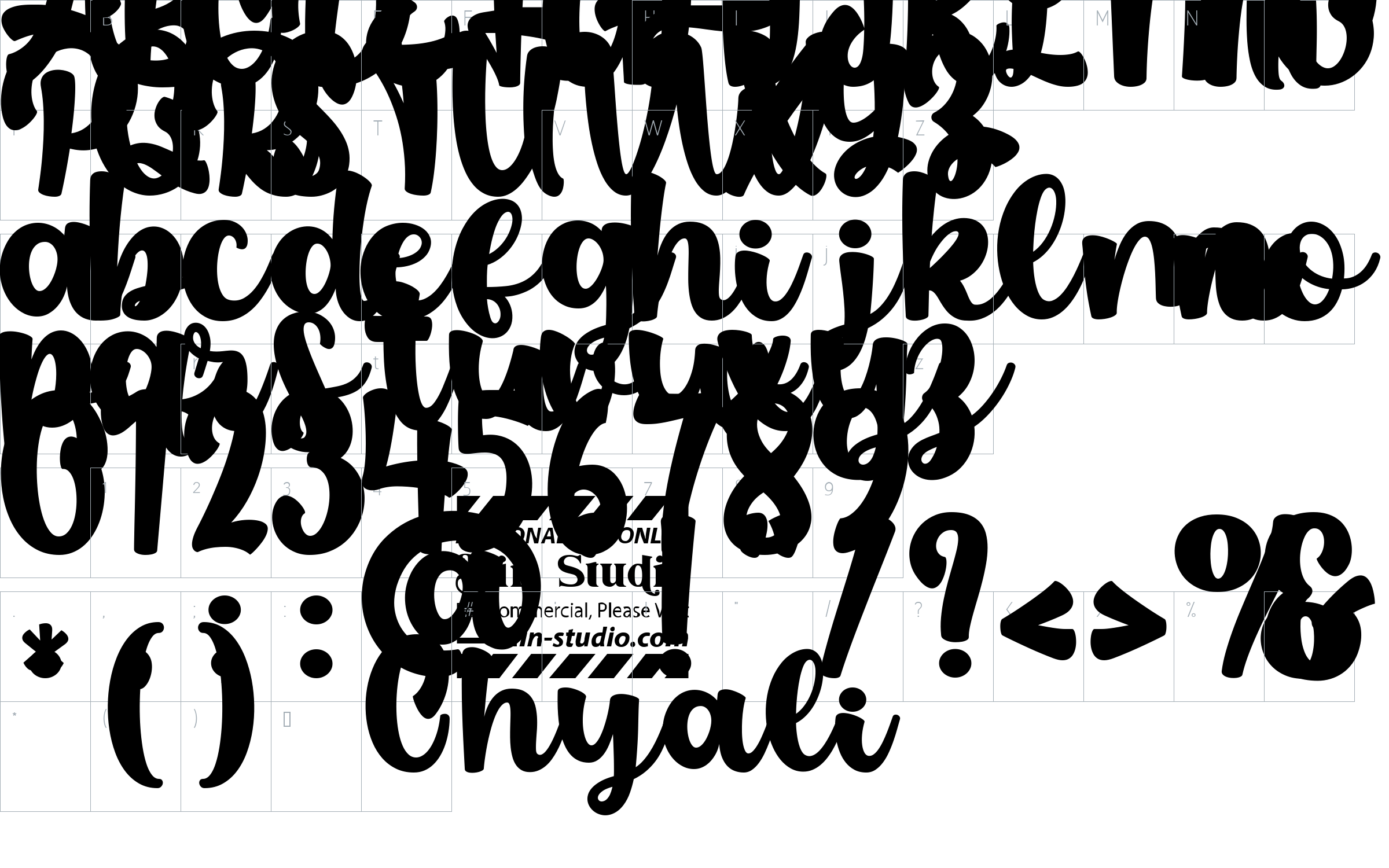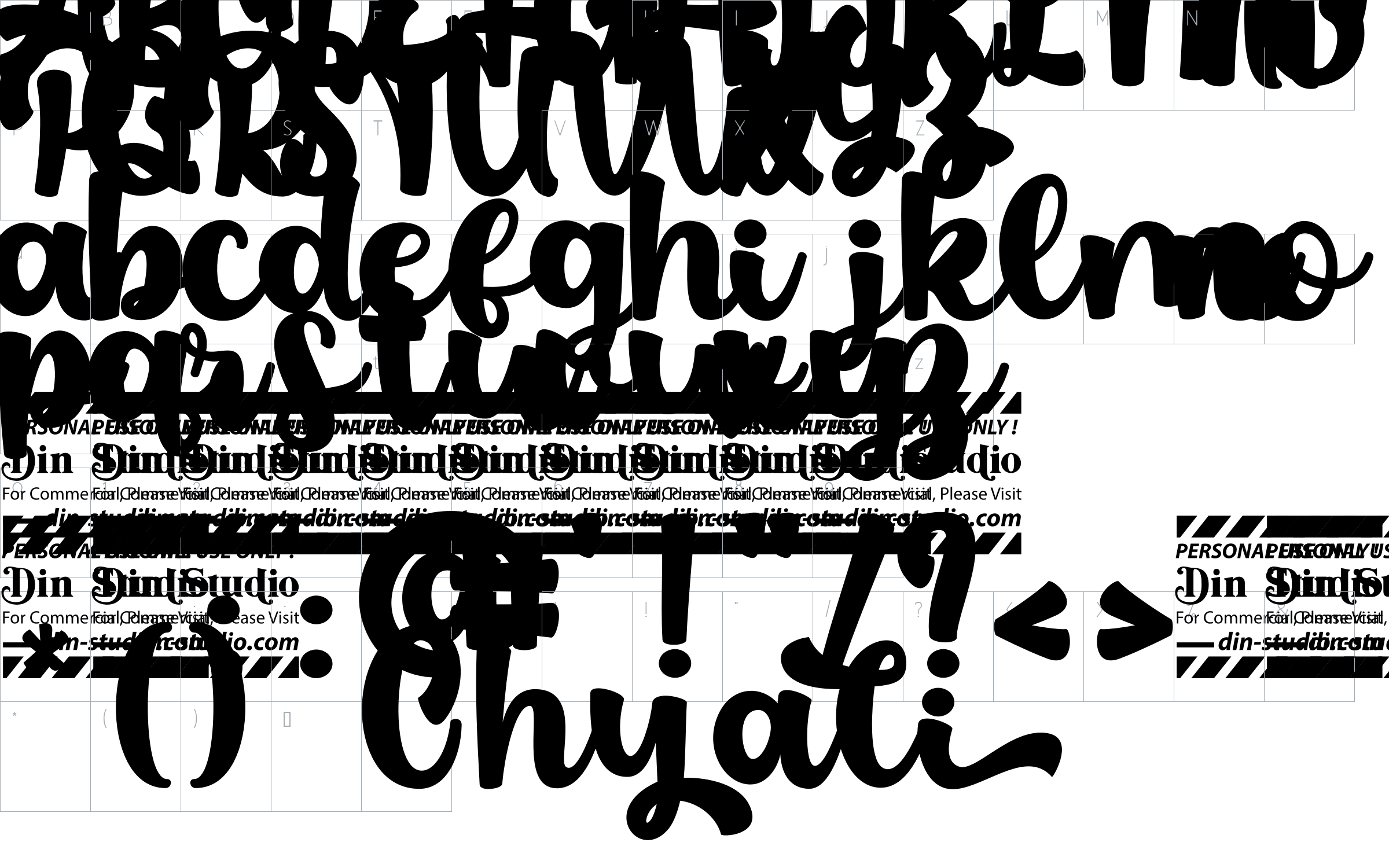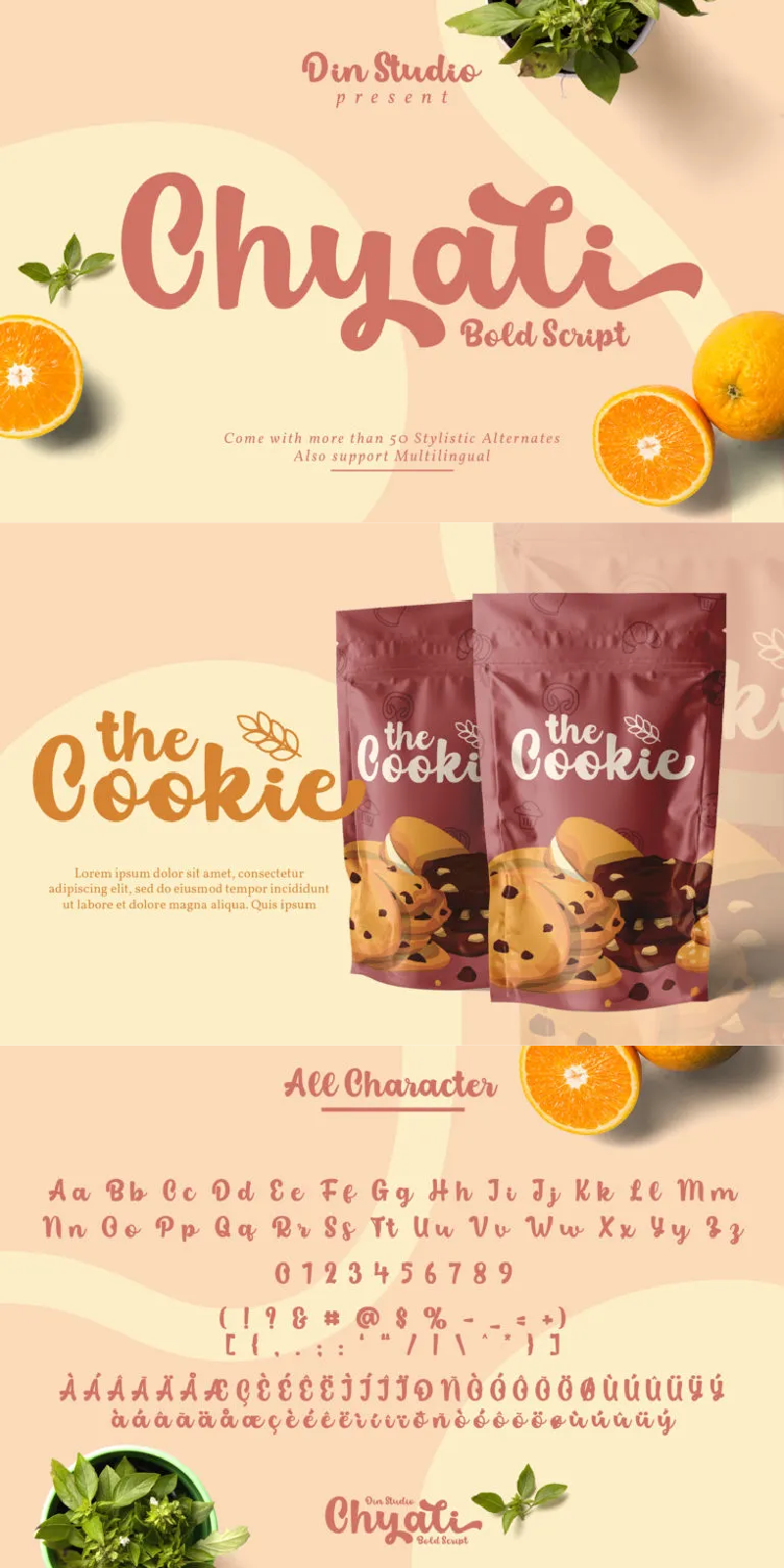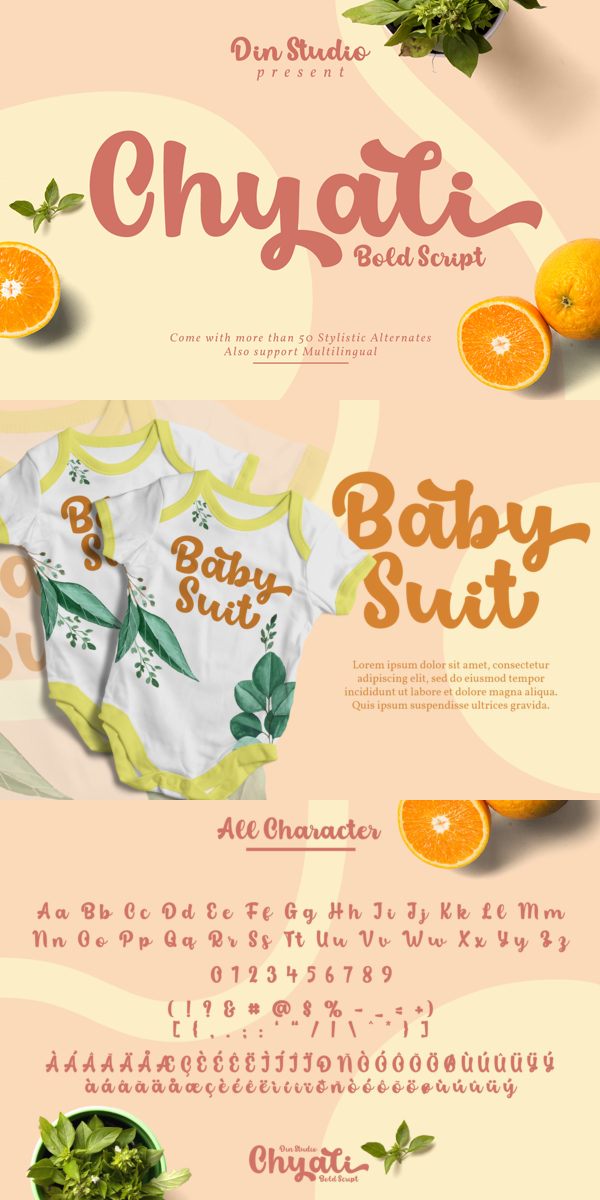
Chyali Font
About Chyali
Chyali is a bold script font for food packaging. It can elevate your project designs. Chyali font includes a full set of handwritten uppercase and lowercase letters, numerals, punctuations, and ligatures. See the previews above to get some inspiration on how you can use them. Enjoy the font!
- Many Alternates
- Swashes